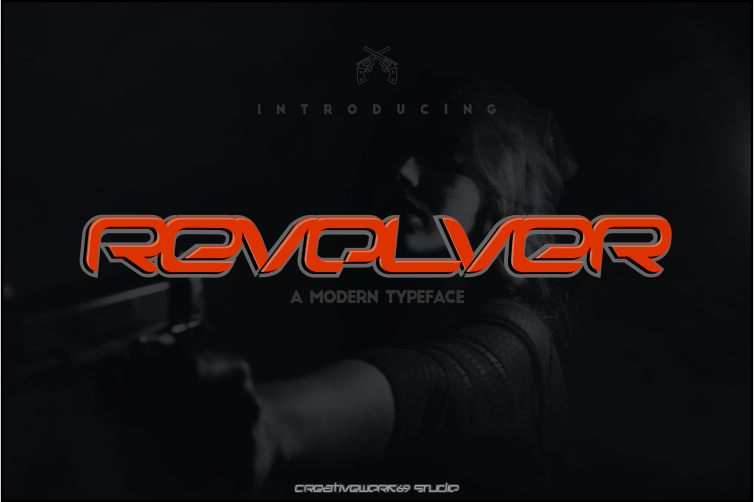
Revolver
This font is very suitable for product brand, logos, automotive brand, web title, magazine header, book title and everything with futuristic style.